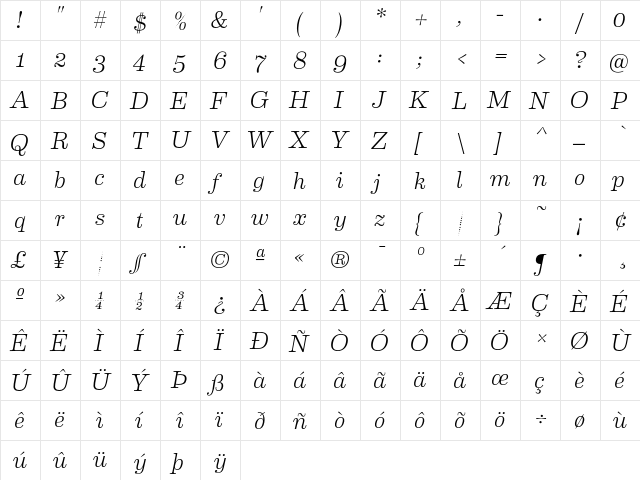
Eames Century Modern Light Italic Font Preview
| Foundry | House Industries |
| Designer | Erik van Blokland |
| Year | 2010 |
Design Context for Eames Century Modern Light Typeface
Eames Century Modern Light offers clean, dependable letterforms without strong stylistic allegiance, making it a practical choice for designers who need flexibility. The dynamic lean of this cut emphasises speed and emphasis in any layout. The delicate stroke weight brings airiness and refinement to layouts.
Pro Tip: Try Eames Century Modern Light for annotation and caption copy alongside an upright companion — the contrast in angle creates a dynamic but ordered typographic system.